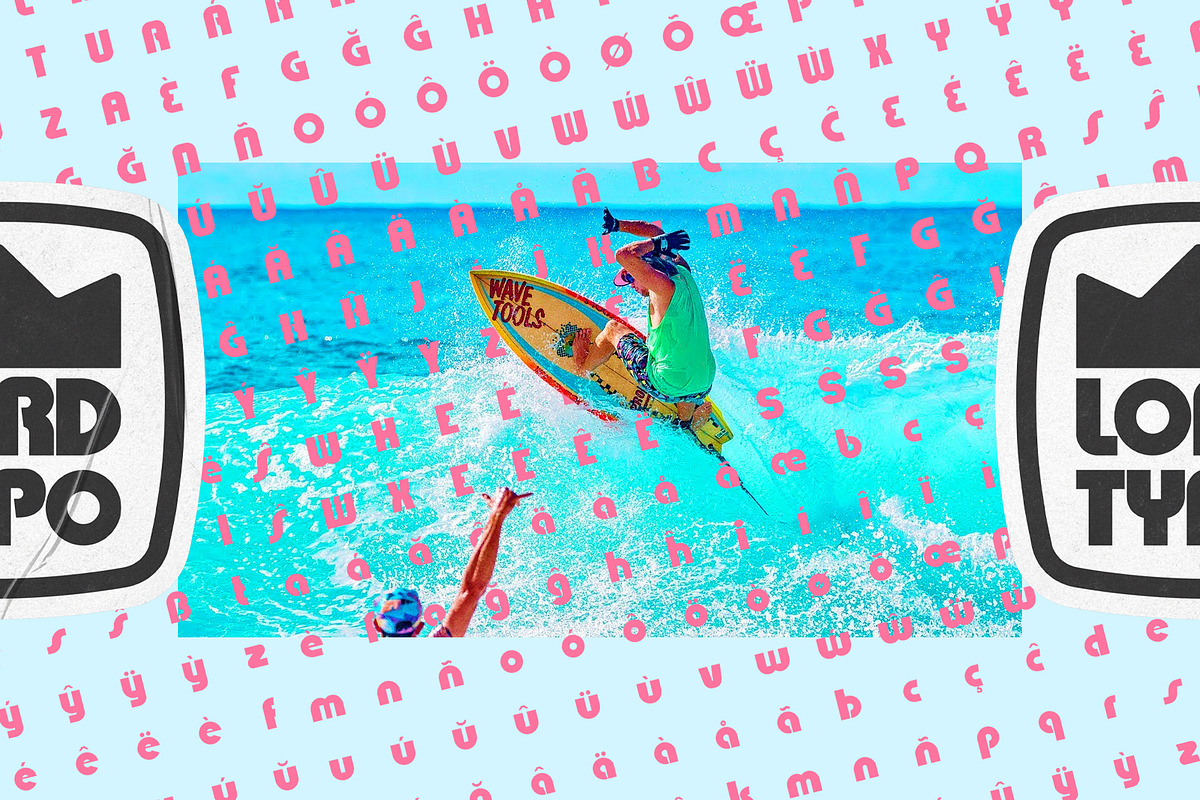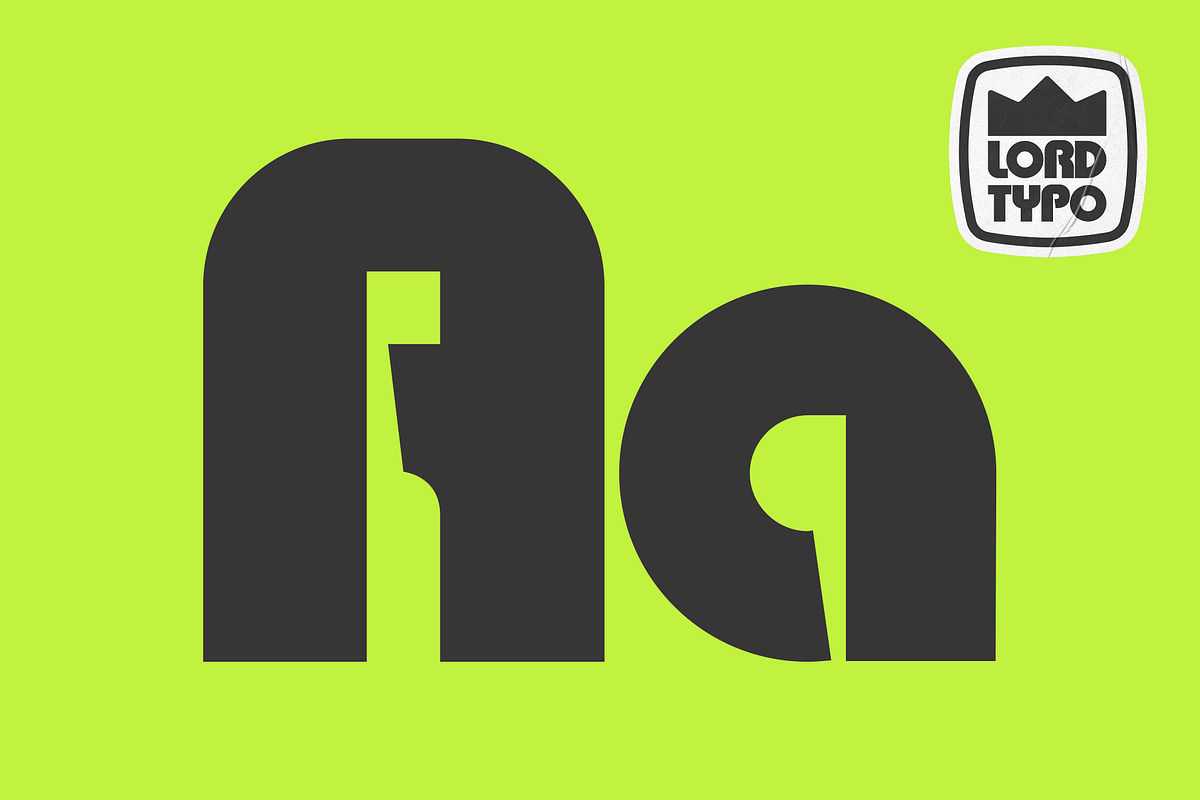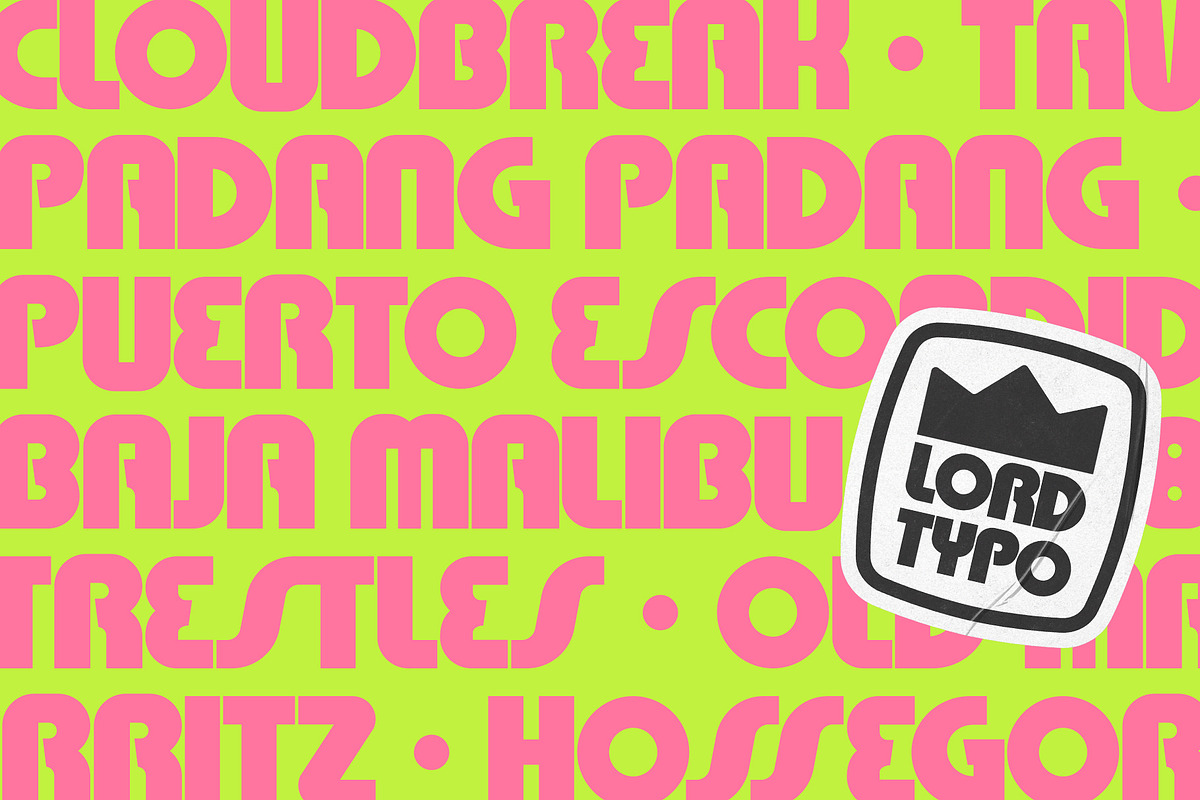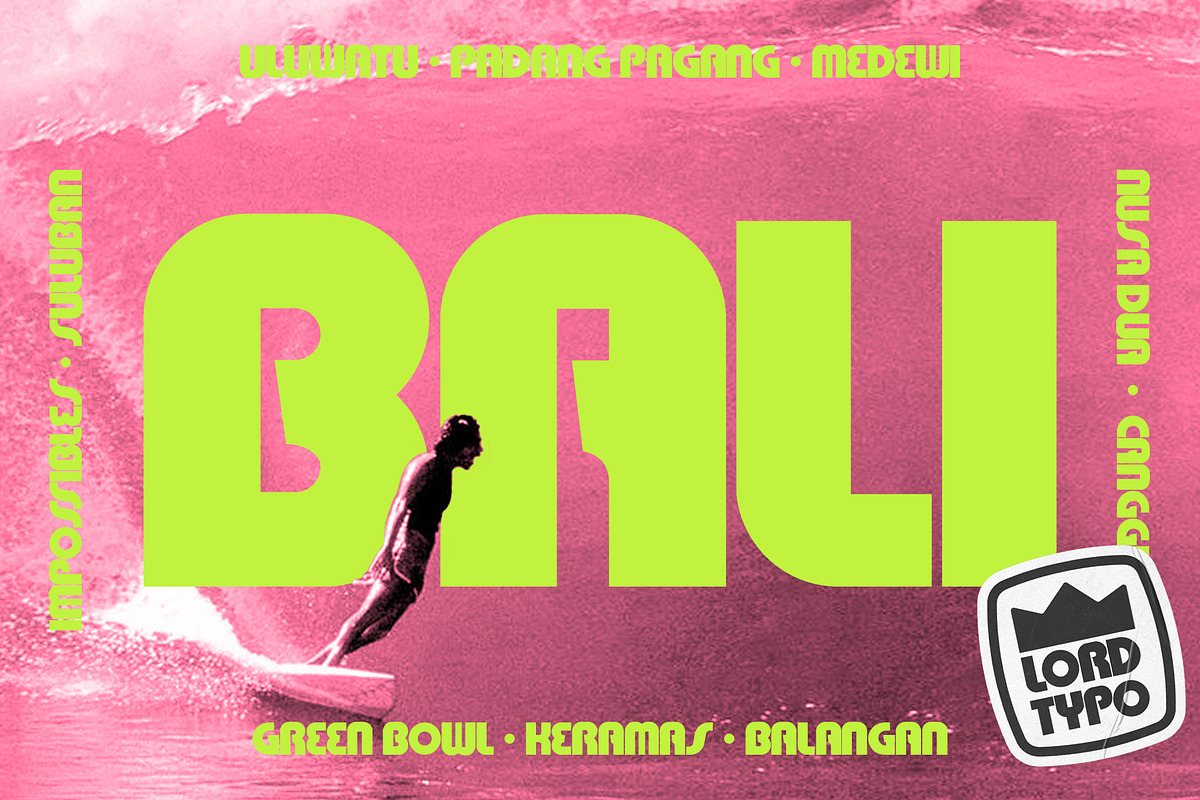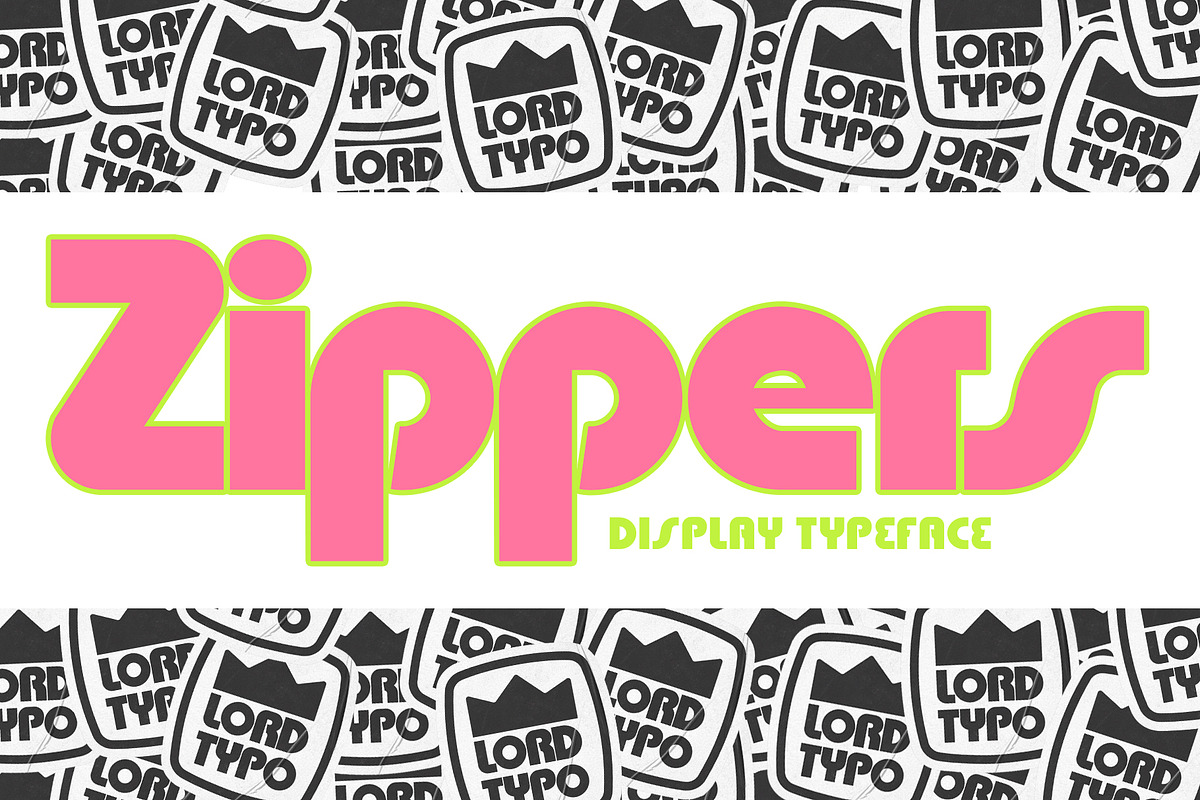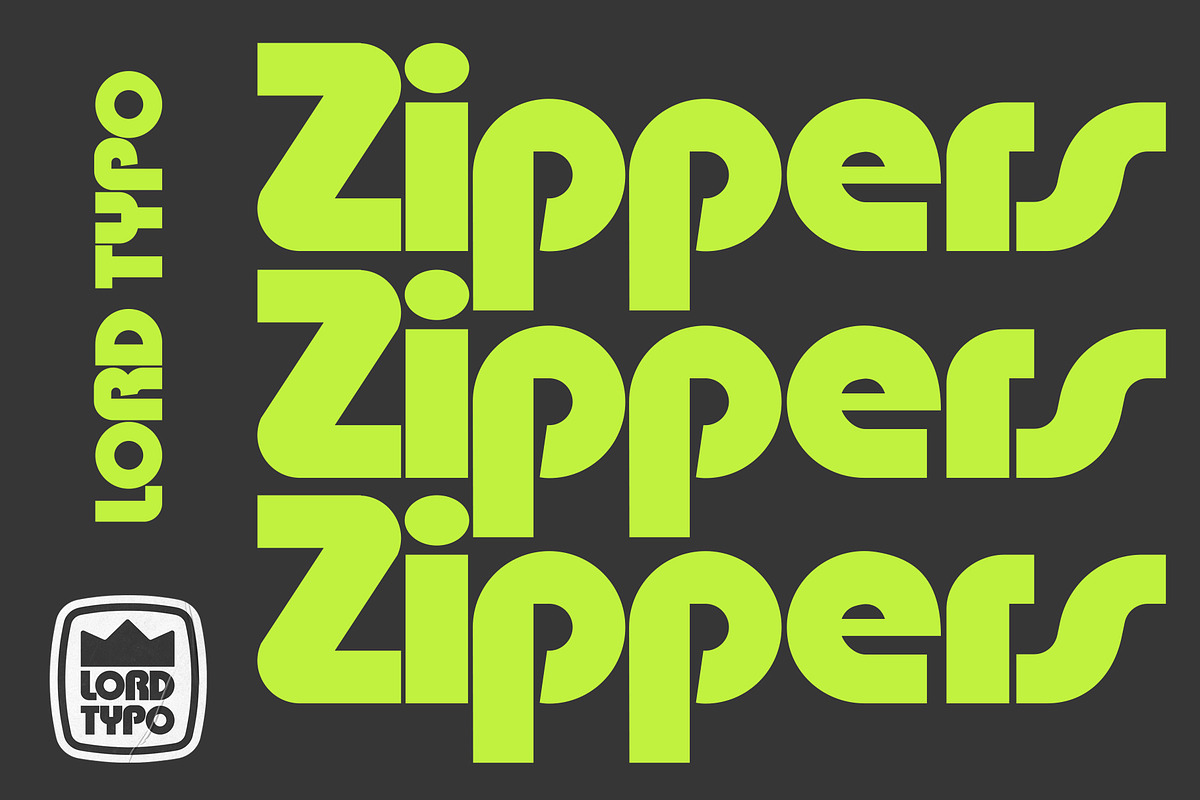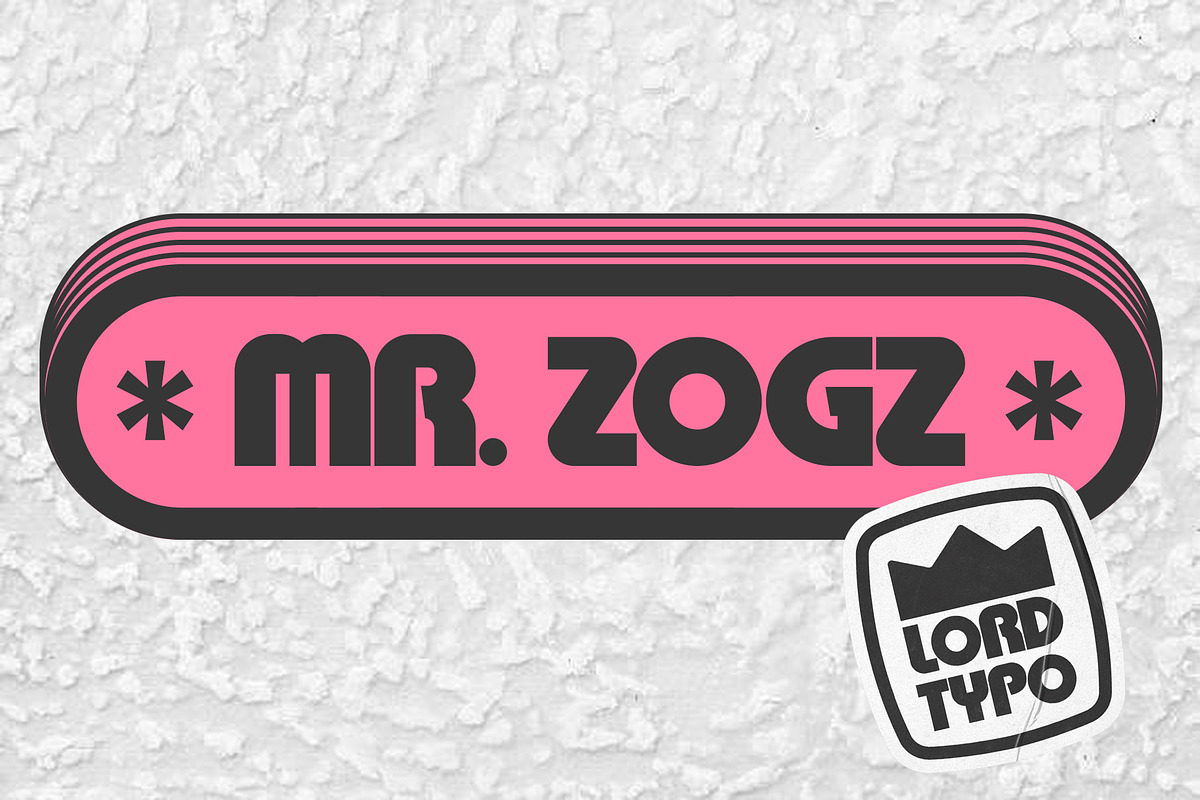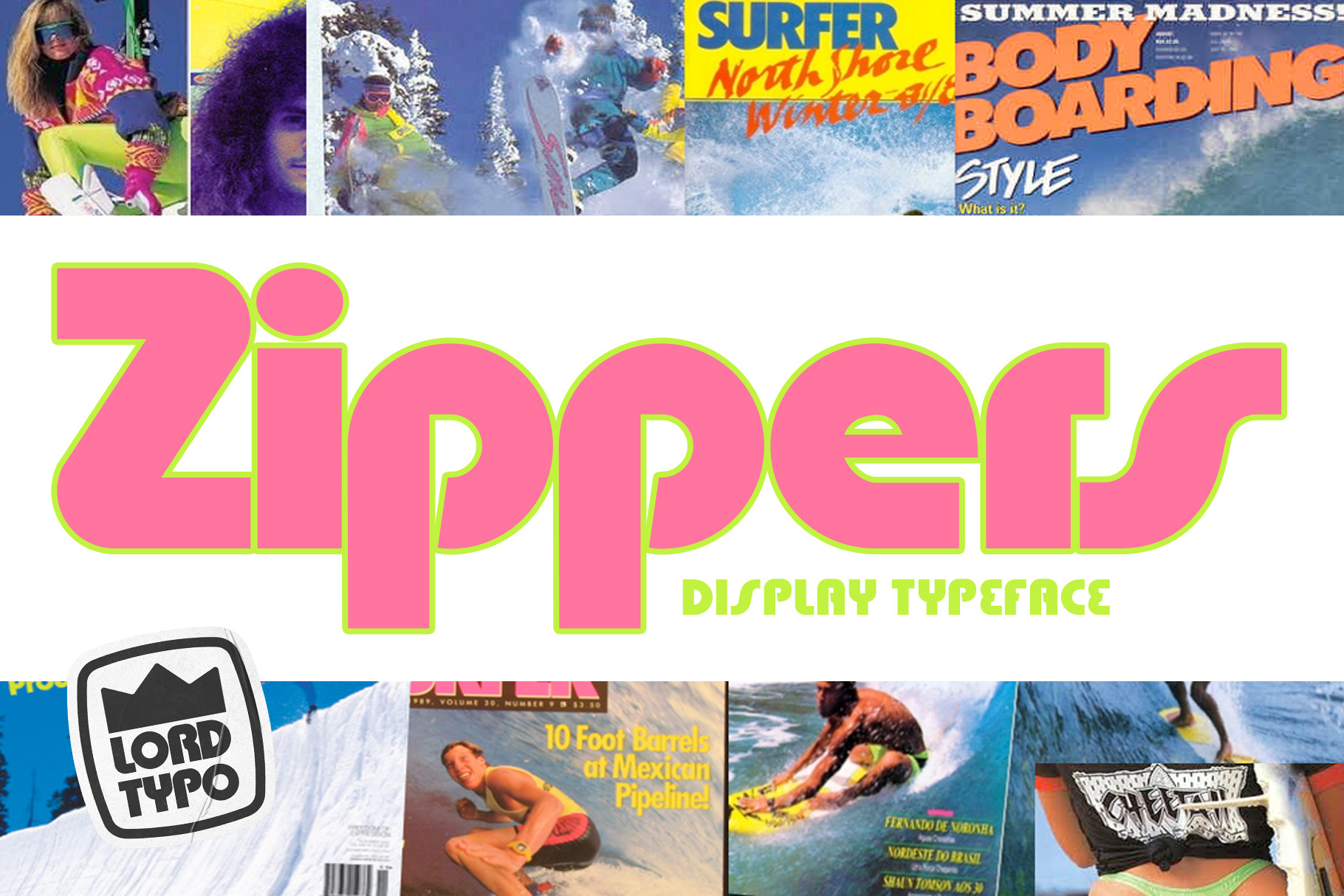
Zippers — Retro Surfy Display Font
Zippers - An All New Retro 80's / 90's Surfy Display Font From Lord Typo
This throwback typeface pays homage to the surf vibe of the 80's and 90's. Zippers is an extremely versatile display font that can be used for anything from branding, logo design, beer labels, shirt graphics, playful editorial spreads and much much more. BUY ME!